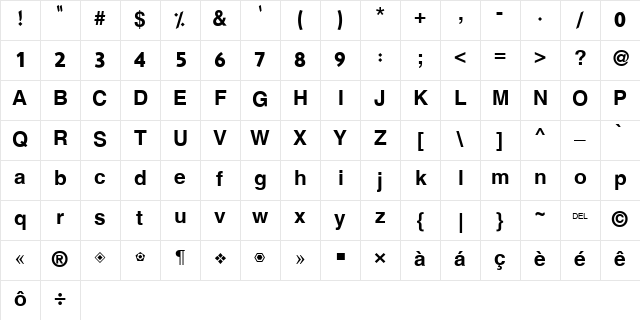
Hacen Casablanca Heavy Regular
Foundry: Muhammad Hacen
Designer: Muhammad Hacen
Design Context for Hacen Casablanca Heavy
Hacen Casablanca Heavy is a composed and adaptable typeface that performs quietly and consistently across a wide range of design contexts.
Pro Tip: Use Hacen Casablanca Heavy in both headline and body roles to test its range before committing to a single application.
Who designed the Hacen Casablanca Heavy Regular font?